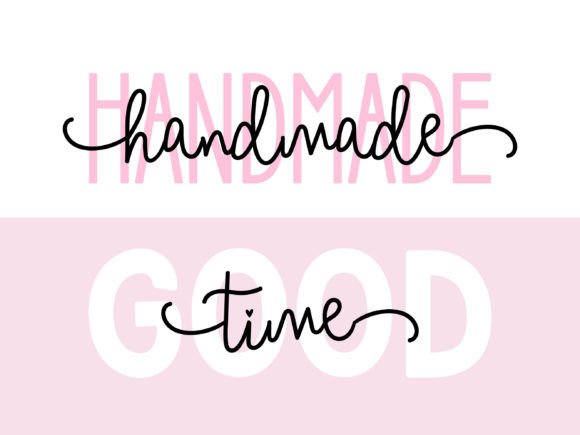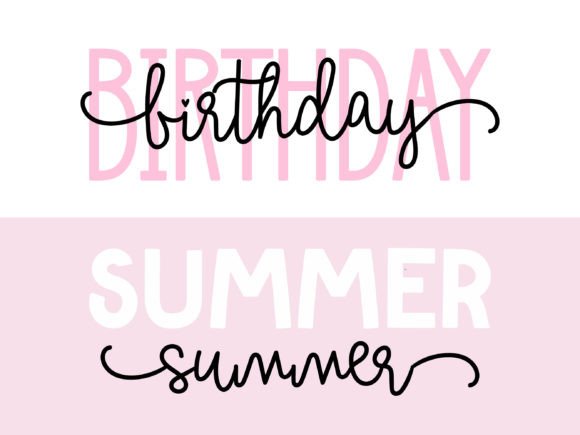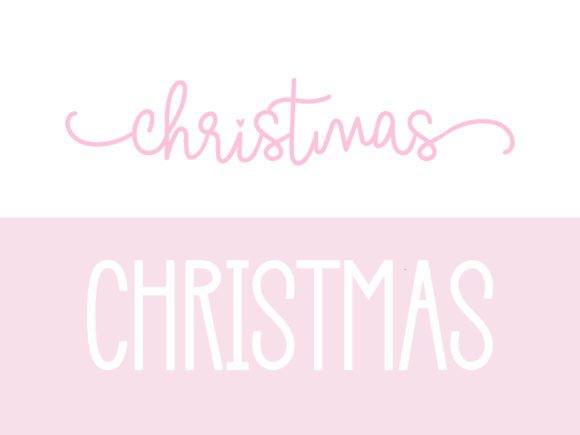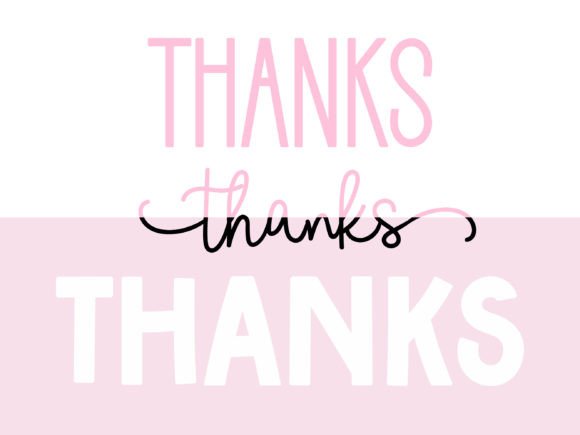
Introduction to More Good Vibes Duo Font Font
Fonts play a crucial role in design, and the More Good Vibes Duo Font font is a typeface that brings both character and versatility to any project. Whether you’re working on a branding project, a website, or a print design, the More Good Vibes Duo Font font offers a unique style that can elevate your work.
More good vibes is a cute and lovely handwritten font duo (script and sans).
Incredibly versatile, this font fits designs, elevating them to the highest levels Dream Wish duo includes single line script font (with swash).
Key Features of More Good Vibes Duo Font Font
Why Choose More Good Vibes Duo Font Font?
The More Good Vibes Duo Font font is more than just a typeface – it’s a design tool that helps you communicate your message with style and clarity. Its unique character set and versatile design make it suitable for a wide range of applications, from elegant invitations to bold headlines.
With its carefully crafted letterforms and balanced proportions, the More Good Vibes Duo Font font ensures readability and visual appeal across all mediums.
What makes More Good Vibes Duo Font font special?
The More Good Vibes Duo Font font stands out with its unique design, exceptional readability, and versatility across various design applications.